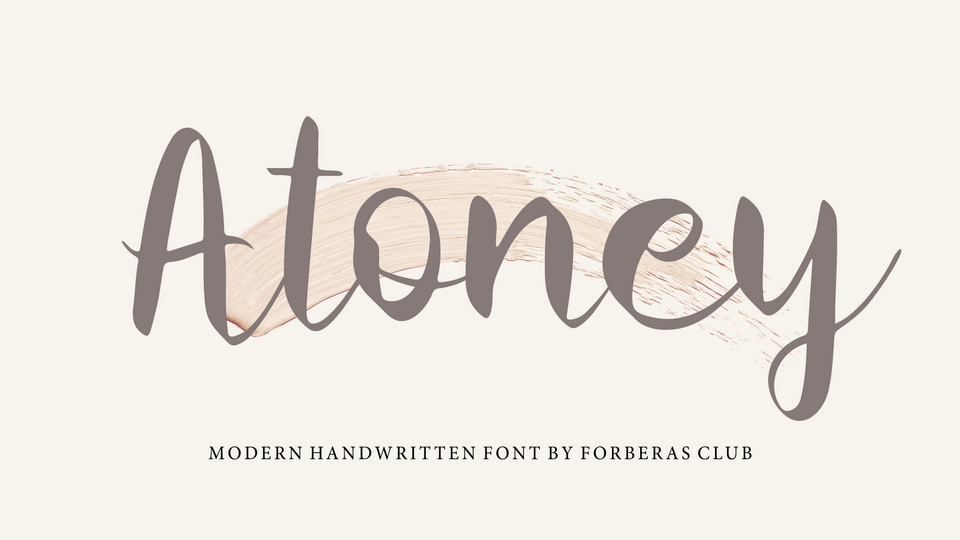
Download Atoney font, a simple and fun handwritten typeface. Atoney looks great on wedding invitations, thank you cards, quotes, greeting cards, logos, business cards and every other design which needs a handwritten touch.